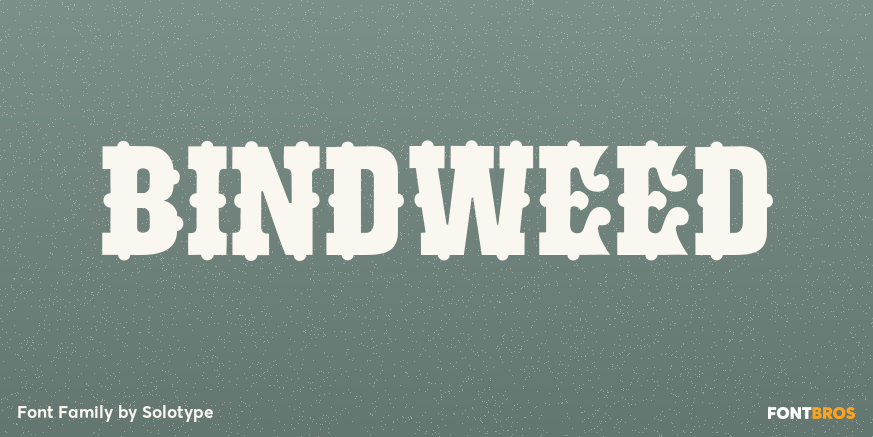
Bindweed
About Bindweed
From an old wood type owned by a San Francisco printer. Wood types were customarily given somewhat generic names (Antique Tuscan) or, more frequently, numbers to identify them. Our clients liked colorful, easily-remembered names better, and so did we.…